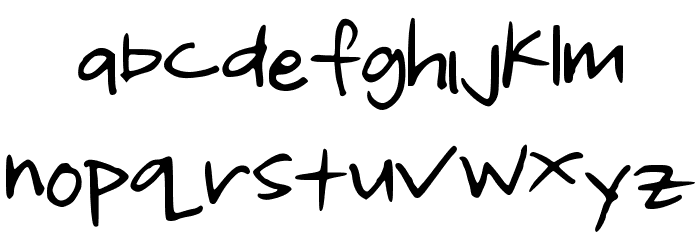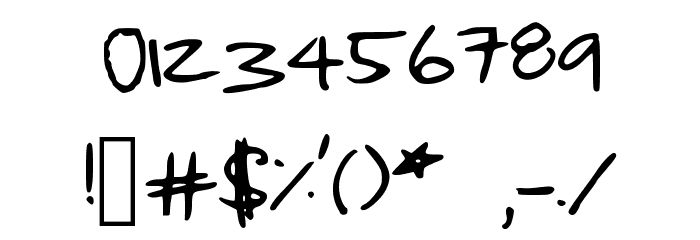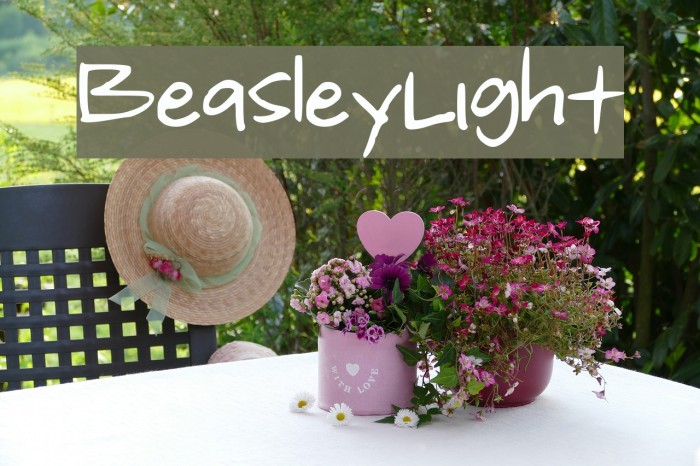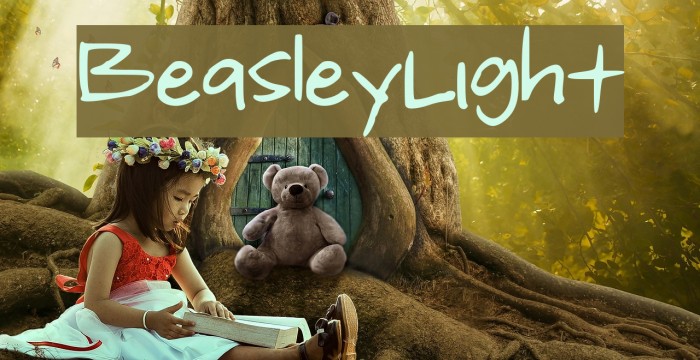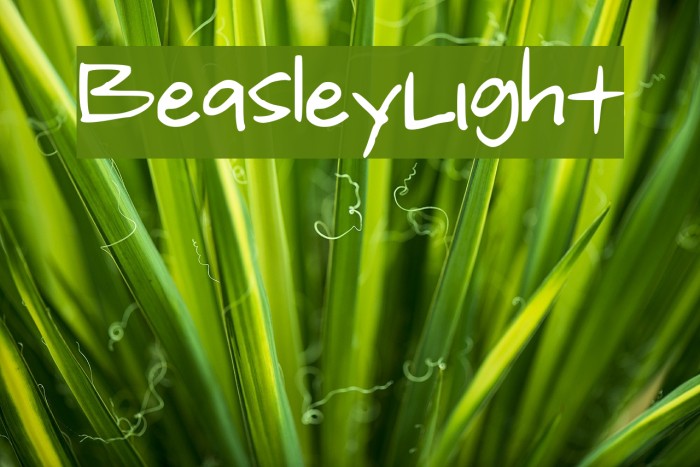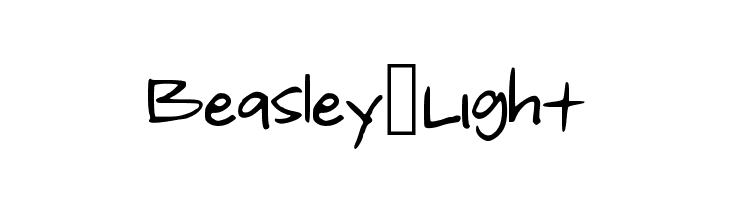
Beasley_Light Font
This font exudes a casual and playful handwritten style, characterized by its smooth, flowing lines and slightly irregular shapes that mimic natural handwriting. The letters are well-spaced, providing a clear and legible appearance while maintaining an informal and friendly tone. The strokes are consistent in weight, offering a balanced look that is neither too bold nor too light. This font is versatile, suitable for projects that require a personal touch or a relaxed aesthetic.
A casual, handwritten font with smooth, flowing lines and a friendly tone.
- Proposed Projects: Ideal for greeting cards, personal notes, informal invitations, and creative projects that benefit from a personal touch.
- Overall Style: Casual
- Use Case: Logos, Headlines, Informal Text